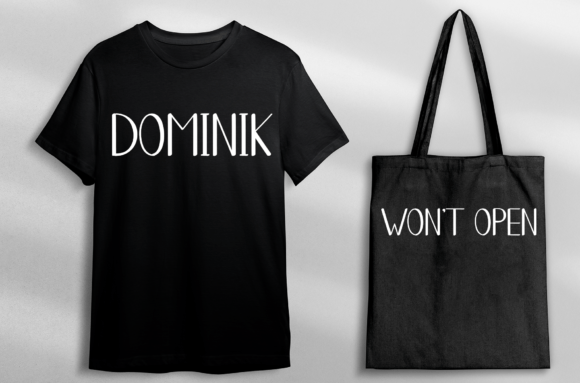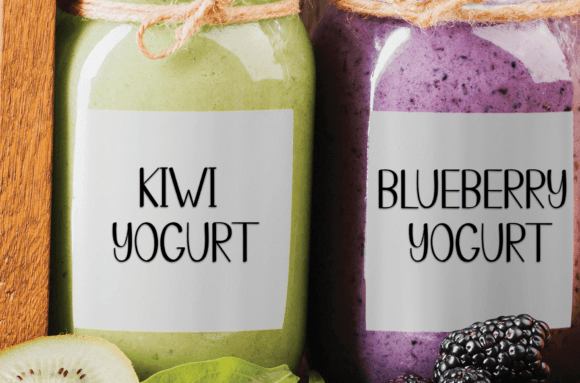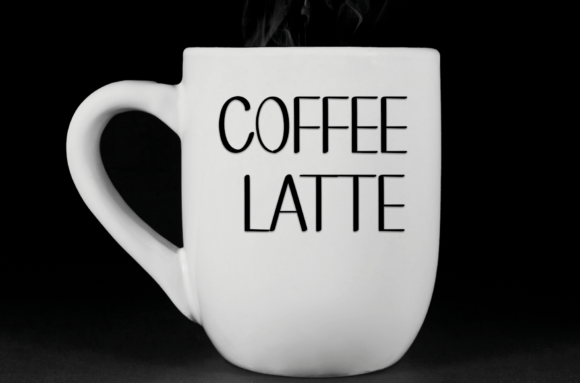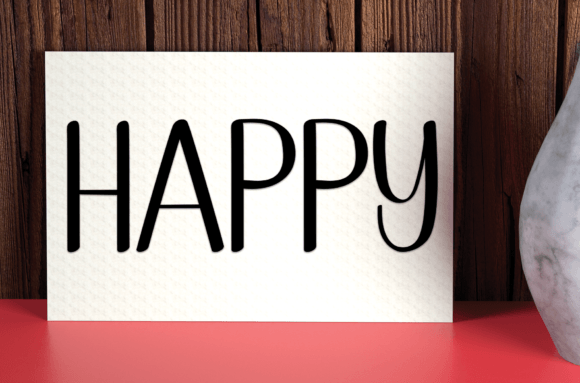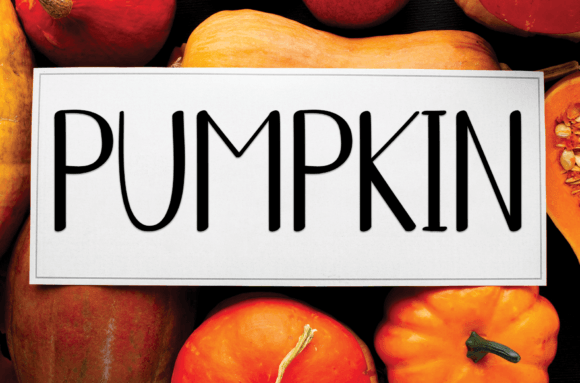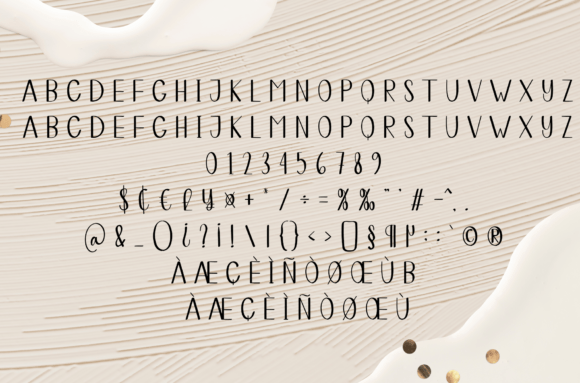
Introduction to Peasants Font Font
Fonts play a crucial role in design, and the Peasants Font font is a typeface that brings both character and versatility to any project. Whether you’re working on a branding project, a website, or a print design, the Peasants Font font offers a unique style that can elevate your work.
Peasants is a sweet and friendly handwritten font.
Fun and relaxed, this font is ideal for writing wedding invitations, cards, or any other design that might need a lovely touch .
The Peasants Font font is more than just a typeface – it’s a design tool that helps you communicate your message with style and clarity. Its unique character set and versatile design make it suitable for a wide range of applications, from elegant invitations to bold headlines.
With its carefully crafted letterforms and balanced proportions, the Peasants Font font ensures readability and visual appeal across all mediums.
The Peasants Font font stands out with its unique design, exceptional readability, and versatility across various design applications.